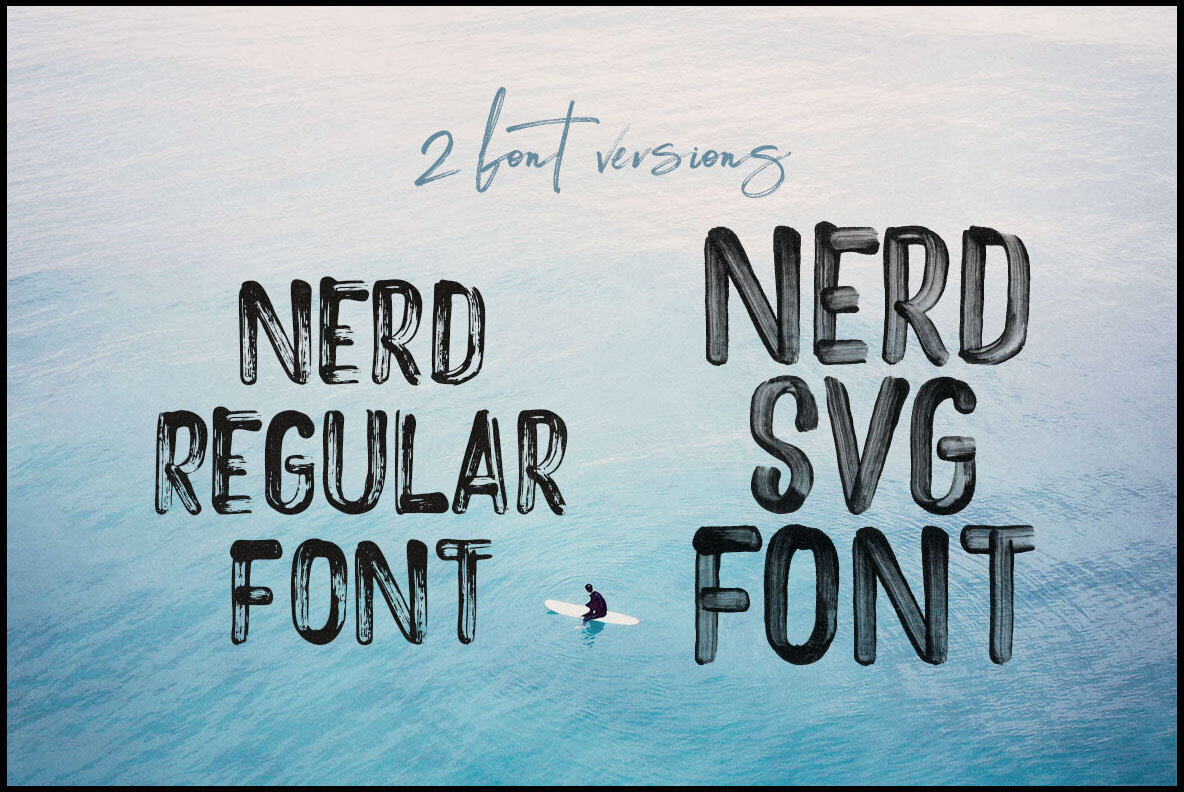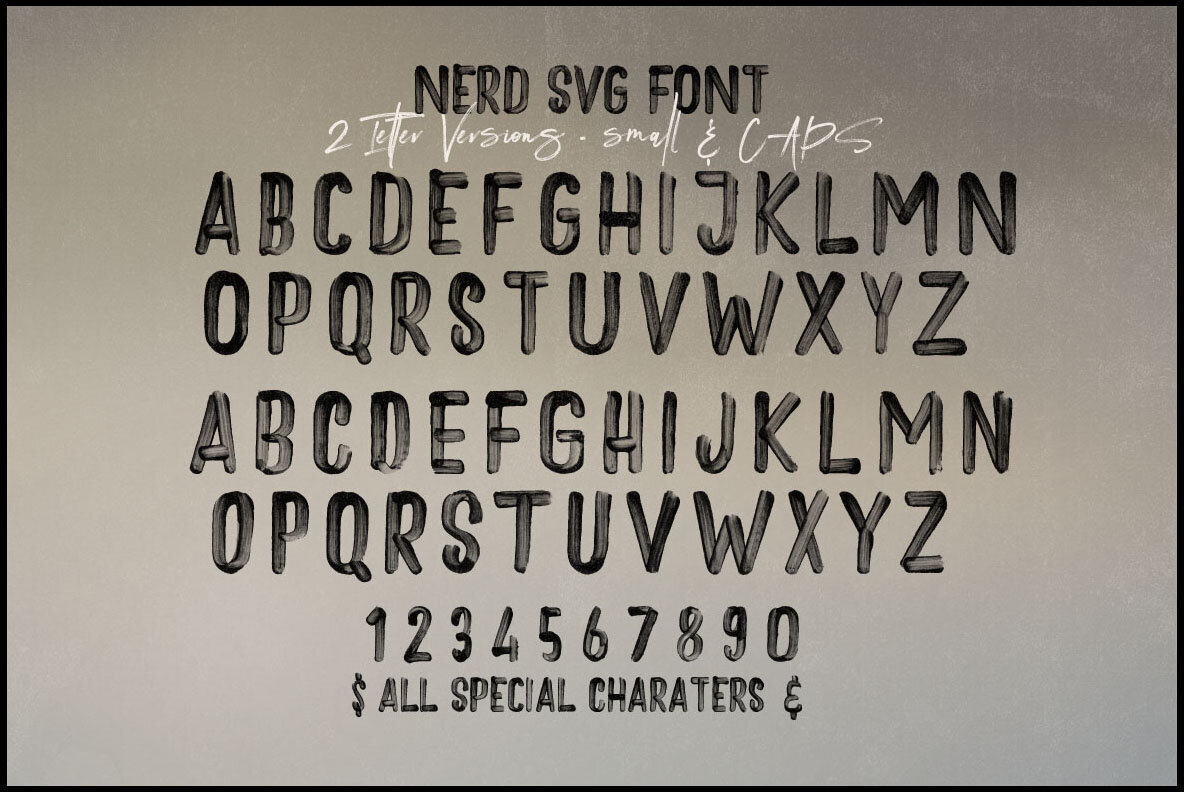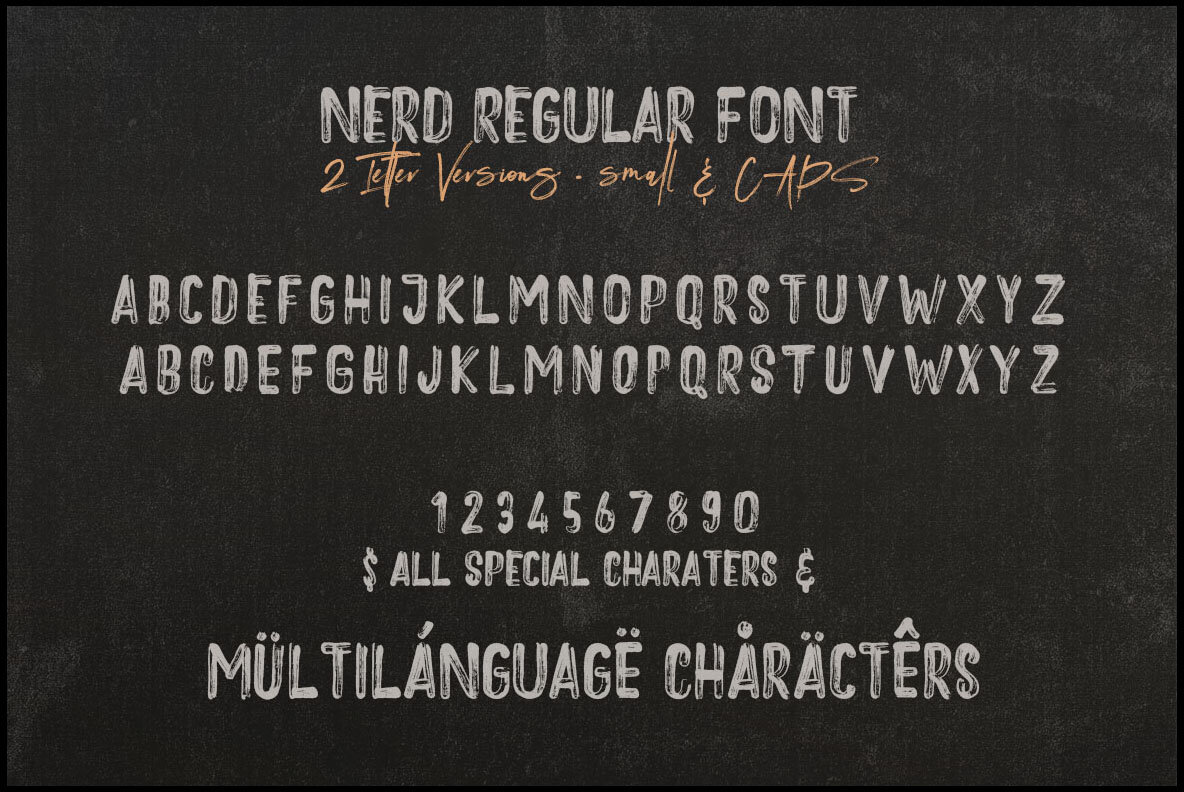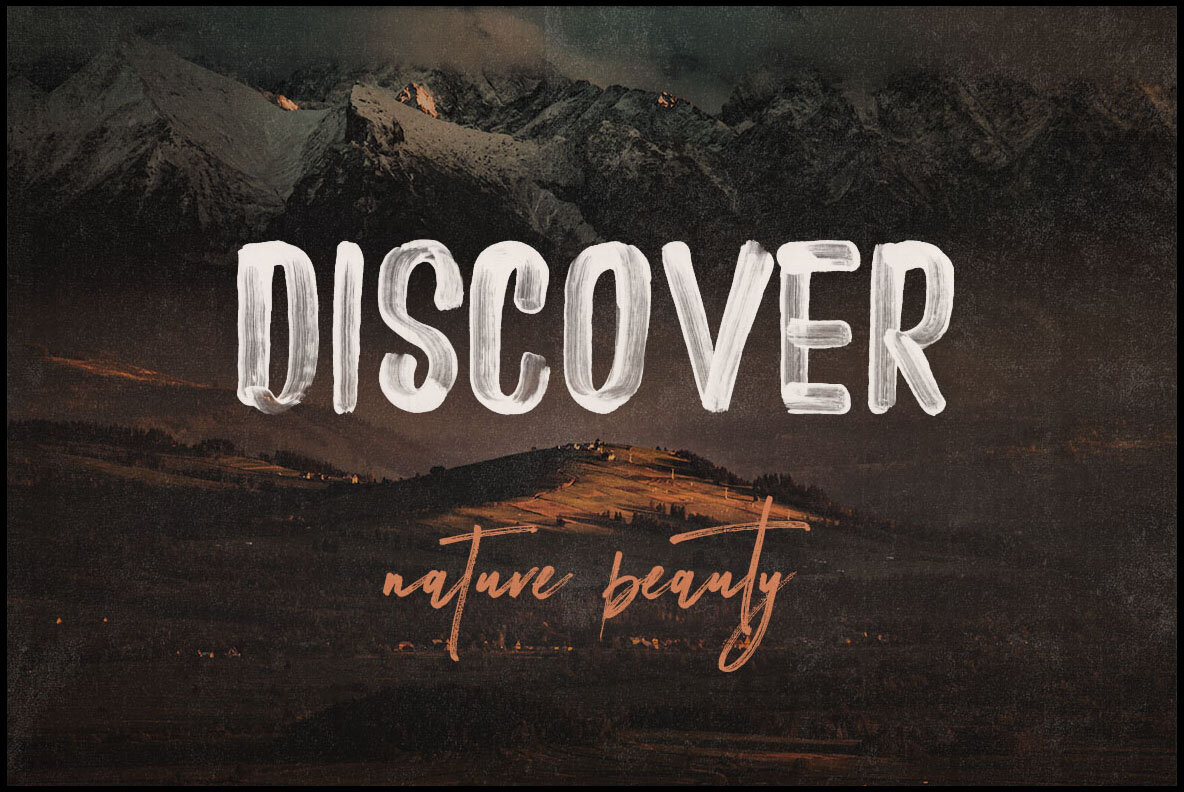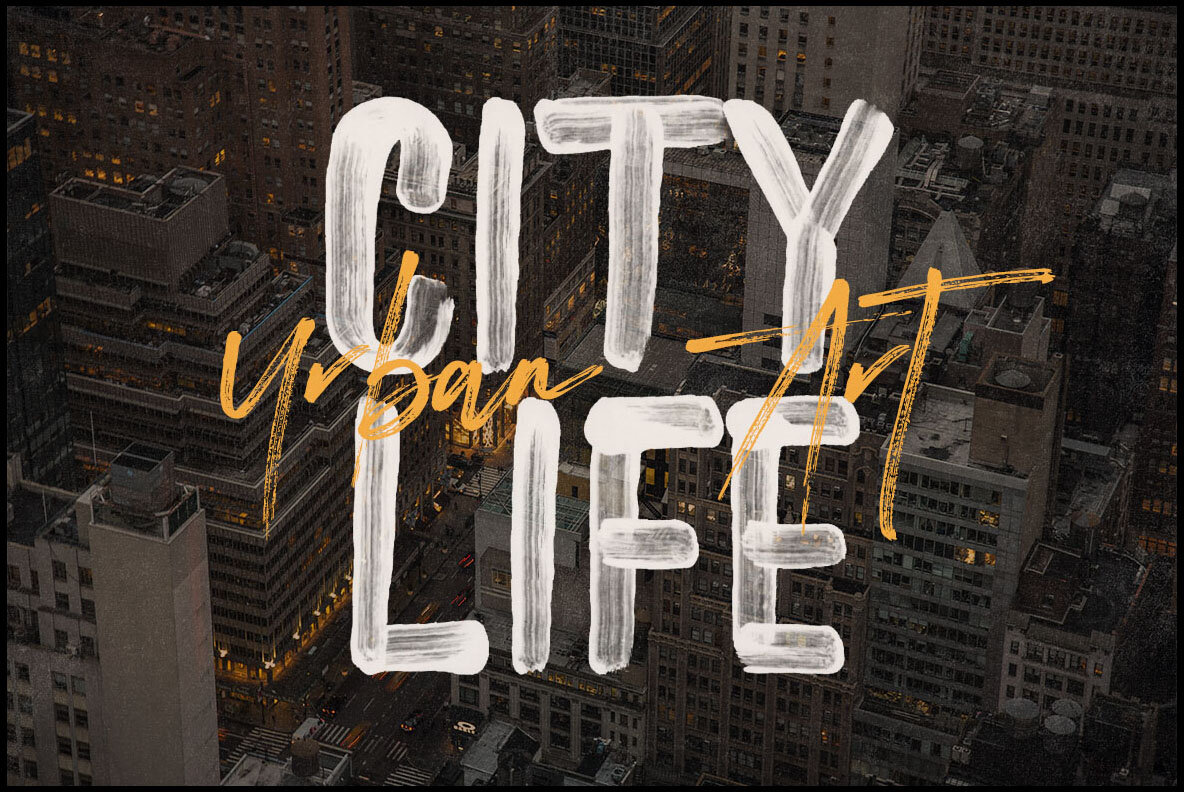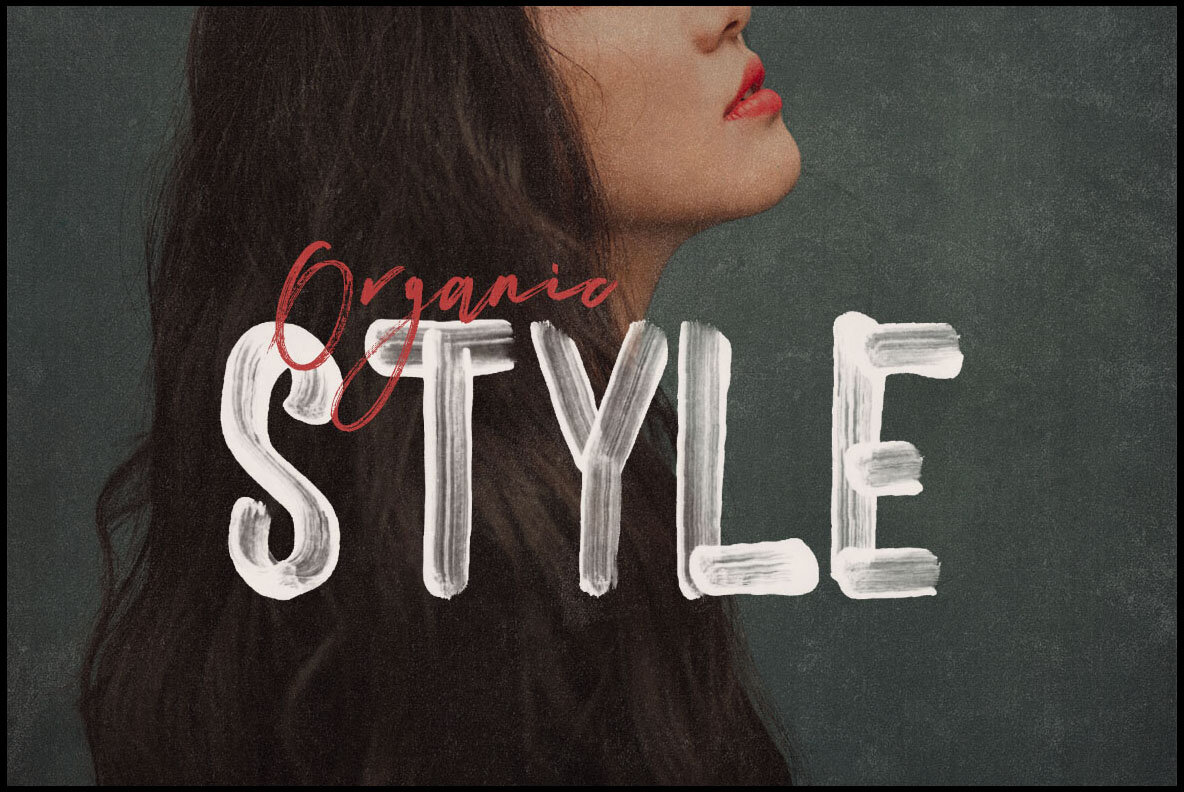
Nerd SVG Brush Font
NERD Regular
NERD Svg
Nerd SVG Brush offers a distinctive paint or grunge style sans-serif font ideal for infusing your projects with an artistic flair. Perfect for adding a gritty, creative edge to your designs.Nerd SVG Brush: Grunge Style Sans Display Font